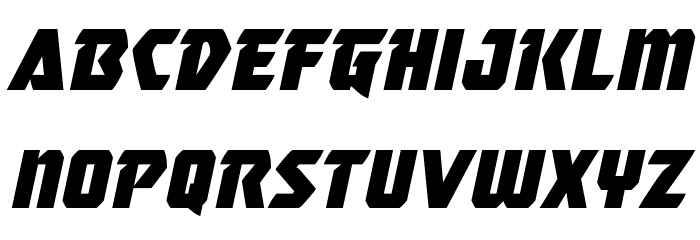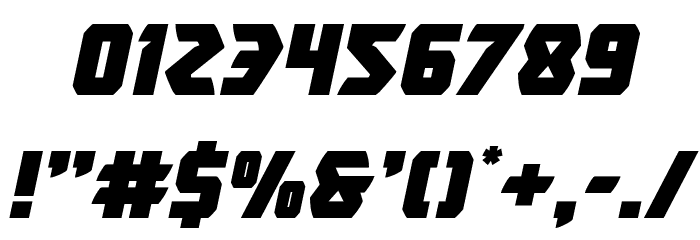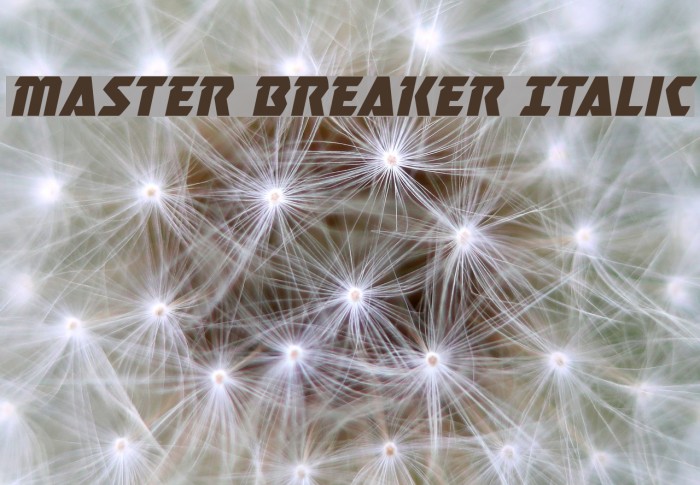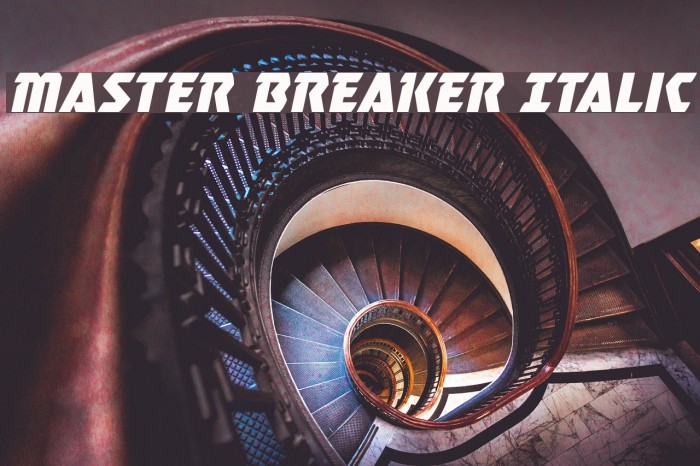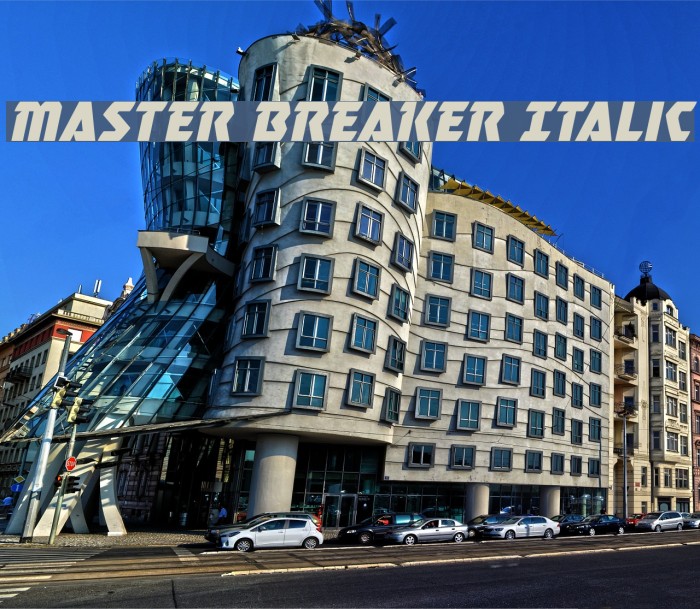
Master Breaker Italic Font
This font features a bold and dynamic style with a distinct italic slant, giving it a sense of motion and energy. The characters are angular and geometric, with sharp edges and a strong presence. The uppercase and lowercase letters maintain a consistent design, emphasizing a futuristic and modern aesthetic. The numbers and special characters follow the same bold and angular style, ensuring uniformity across all glyphs. This font is ideal for projects that require a strong visual impact and a contemporary feel.
A bold, italic, and angular font with a modern and dynamic style.
- Proposed Projects: Ideal for sports branding, video game titles, action movie posters, and dynamic logo designs.